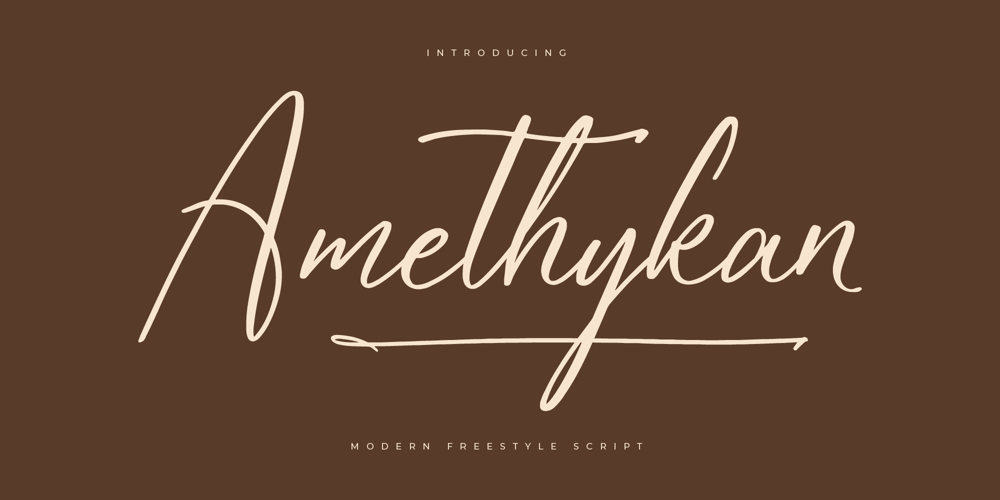
Amethykan Font Family was designed by Heru Utama Putra and published by Letterena Studios. Amethykan contains 2 styles and family package options. Amethykan is a charming script font imbued with elegance and grace. Its fluid strokes and delicate curves evoke a sense of sophistication and romance. Perfect for invitations, branding, and elegant designs, Amethykan adds a touch of refinement and charm to any project, captivating audiences with its timeless allure.